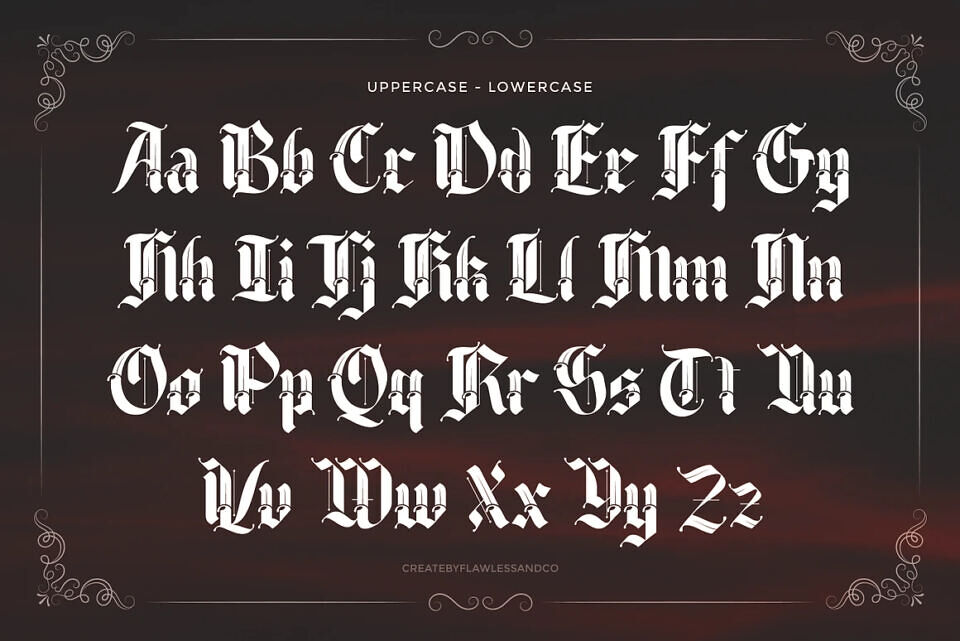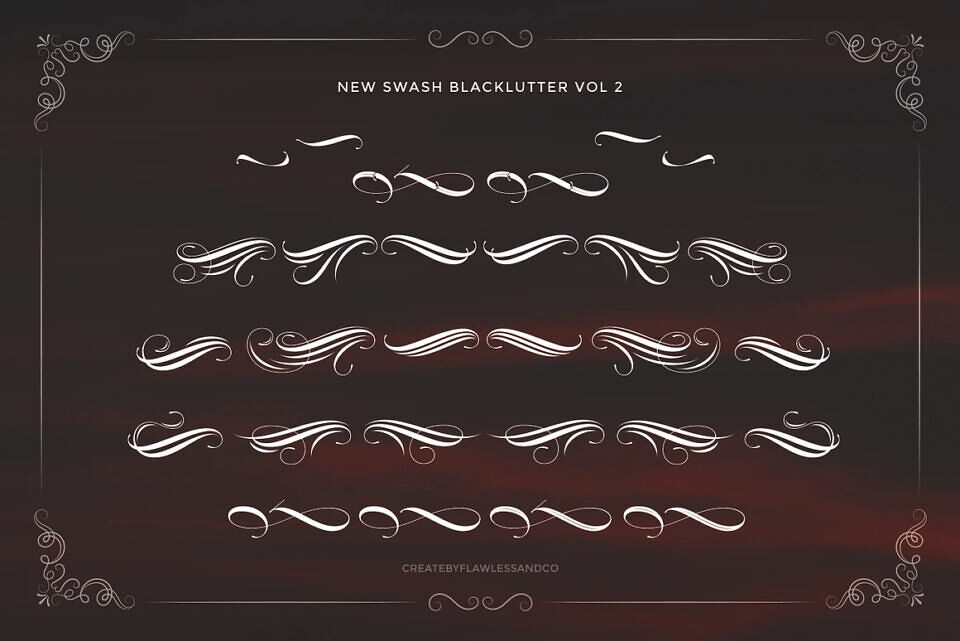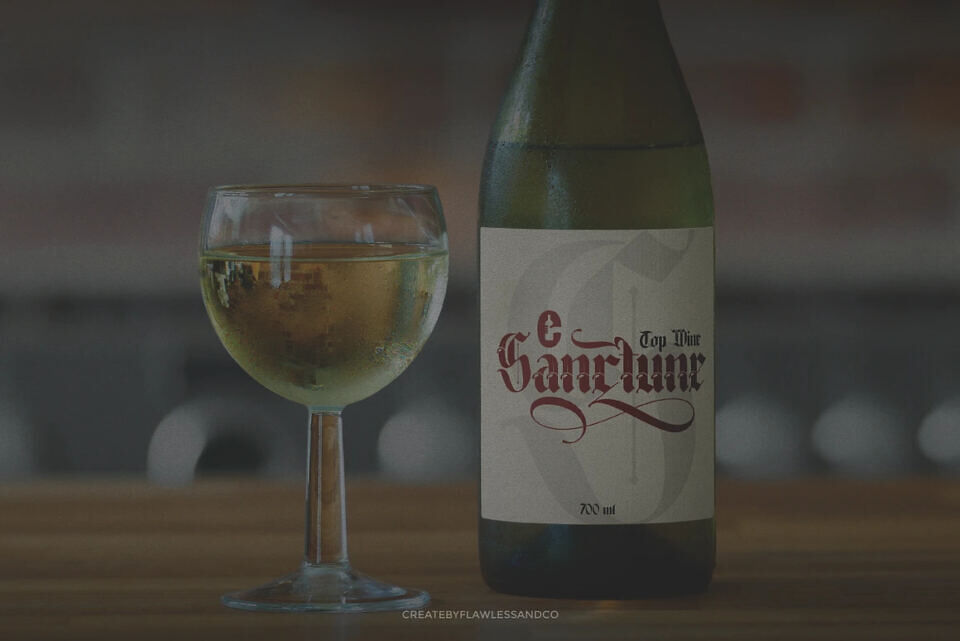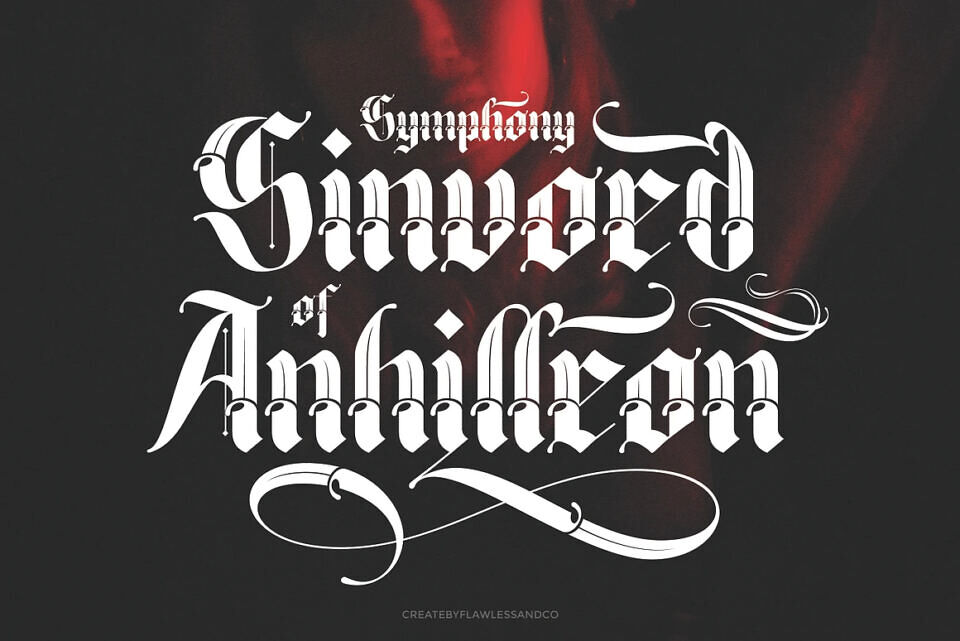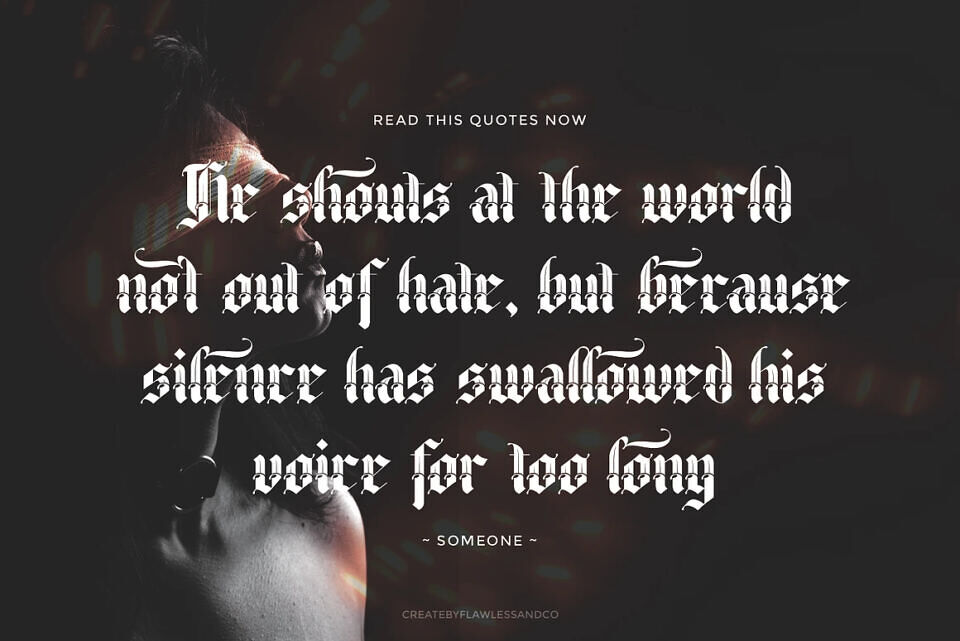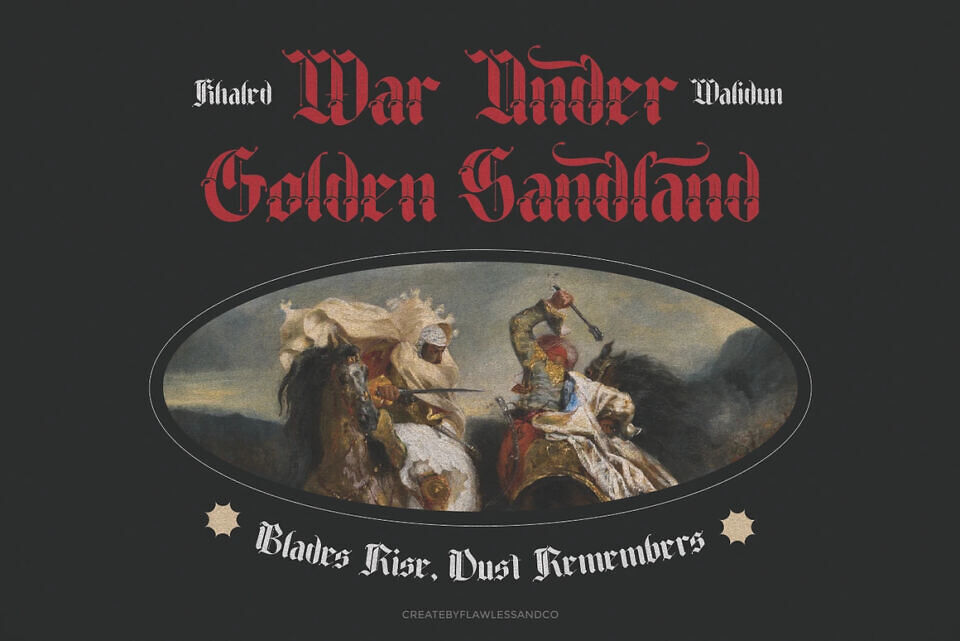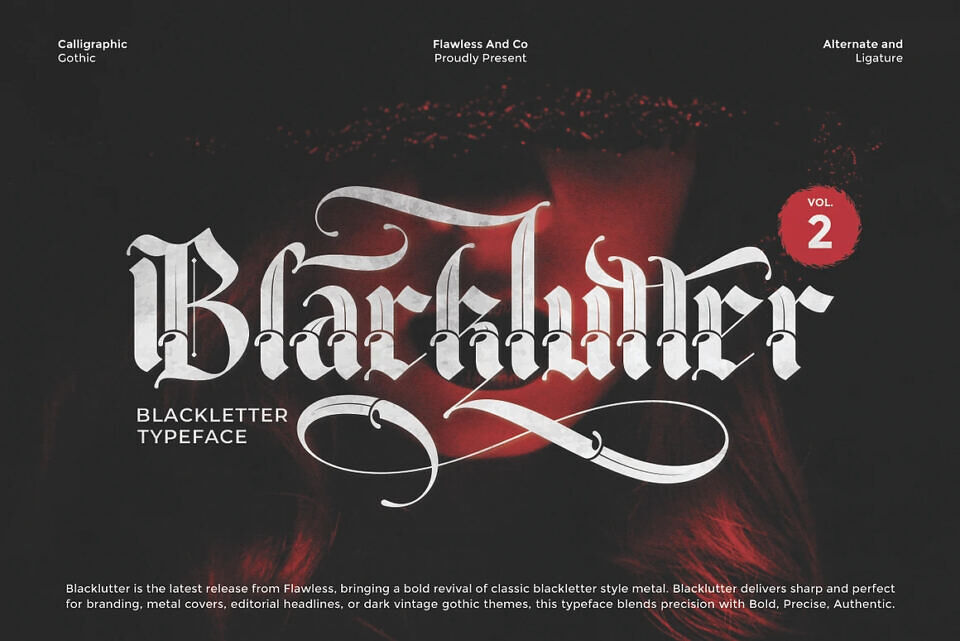
Blacklutter V2 Font
Blacklutter Vol2 is a bold and powerful blackletter typeface that combines traditional gothic style with a modern touch. Its sharp edges, dramatic strokes, and distinctive letterforms make it perfect for designs that demand strength, authority, and style.
This typeface is ideal for branding, logos, posters, merchandise, album covers, tattoo lettering, and more. Whether you’re working on a vintage-inspired project or aiming for an edgy, contemporary look, Blacklutter will make your typography stand out.